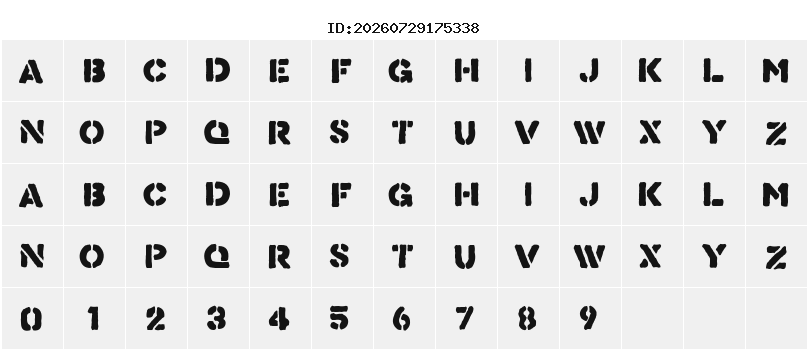
Know Your Product Preview
• Font Name: Know Your Product
• Full Font Name: Know Your Product
• Designer: High-Logic - Erwin Denissen 1999
• Description: Template
About Know Your Product.ttf
Know Your Product.ttf is a modern, elegant sans-serif font designed for ultimate readability and visual harmony. Perfect for branding, headlines, web design, and print materials.